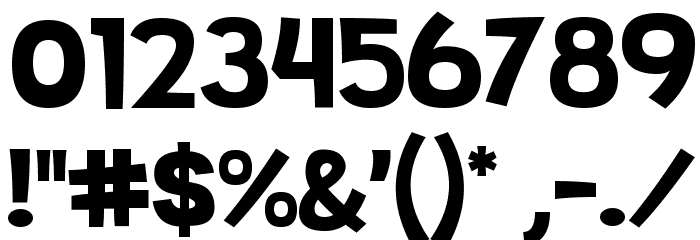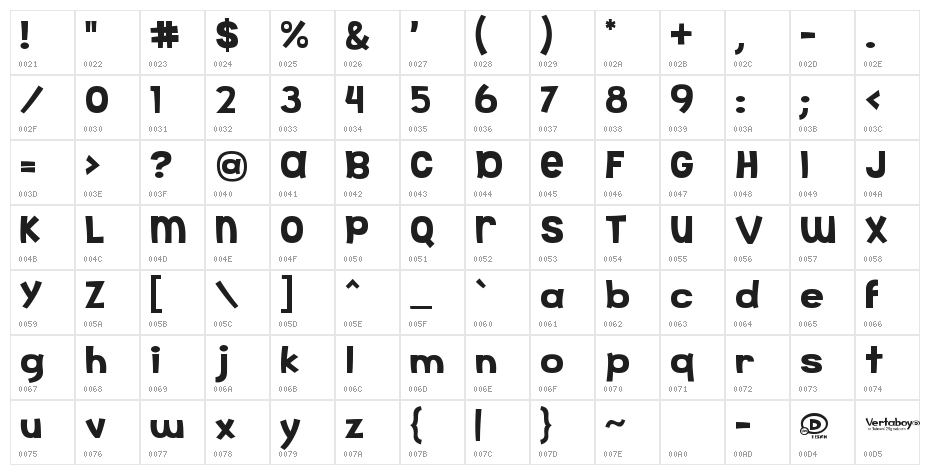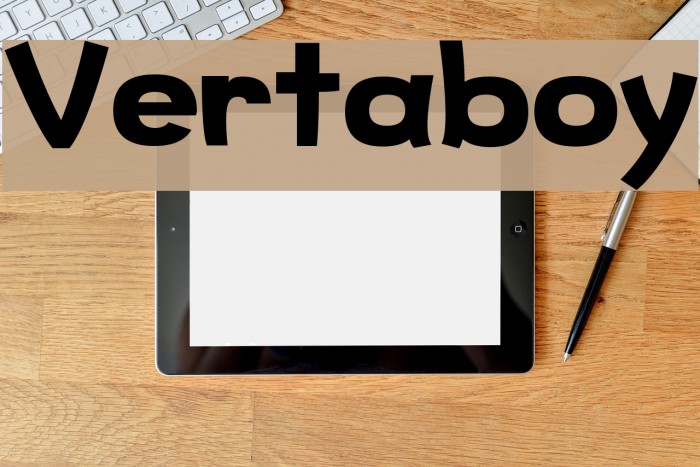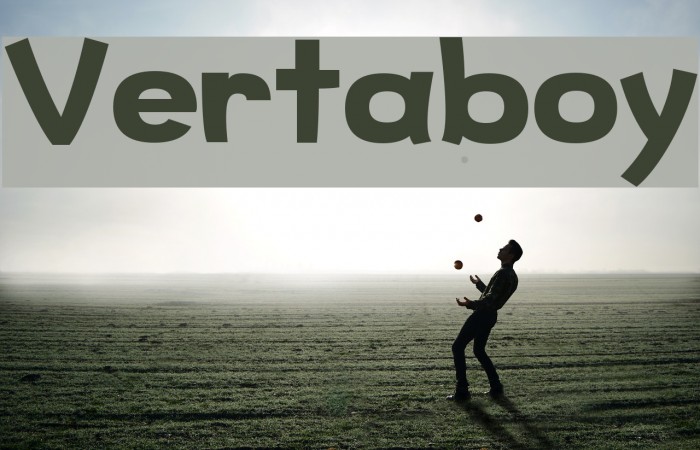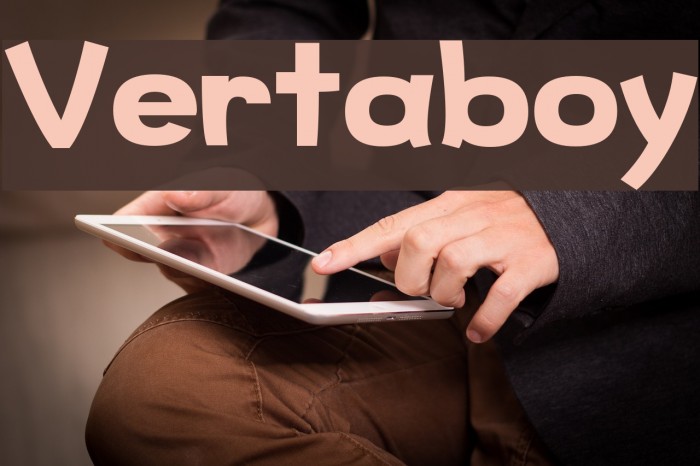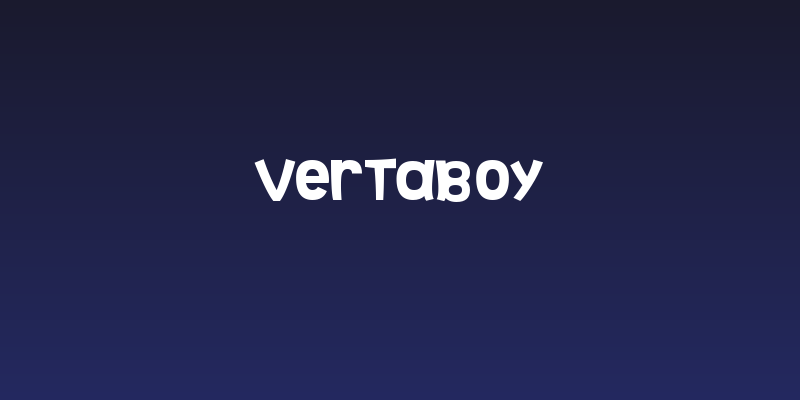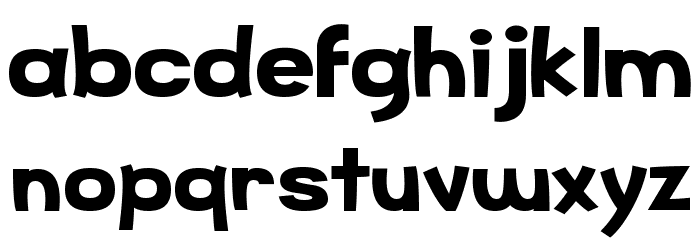
Vertaboy Font
Vertaboy Description
This font features a playful and bold style, characterized by its rounded and slightly irregular letterforms. The uppercase and lowercase letters maintain a consistent thickness, contributing to a uniform appearance. The numbers and special characters follow the same playful design, making them easily recognizable and cohesive with the rest of the font. The overall look is friendly and approachable, suitable for projects that require a touch of whimsy and creativity. Its boldness ensures high readability, even at smaller sizes.
| Proposed Projects | Ideal for children's books, playful branding, posters, and social media graphics. |